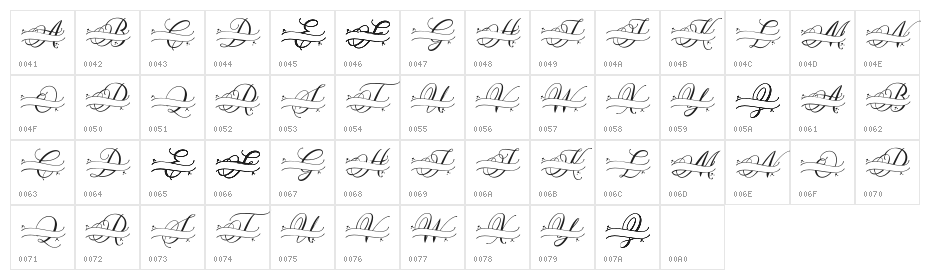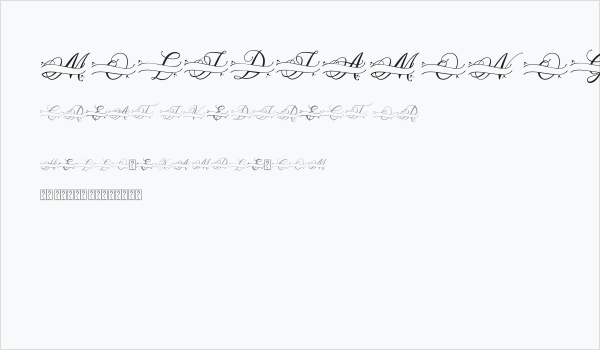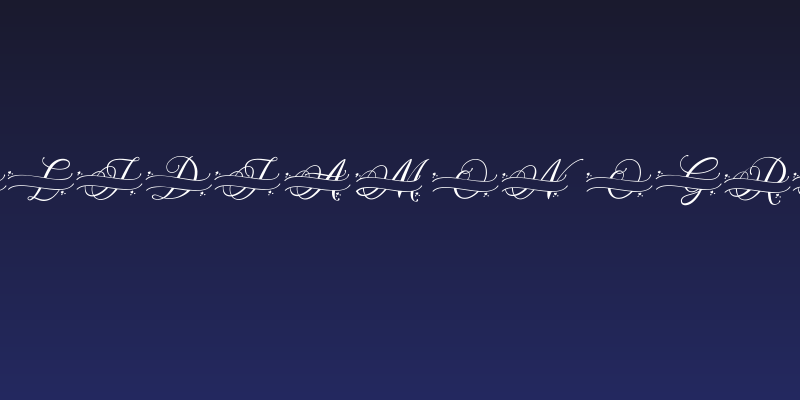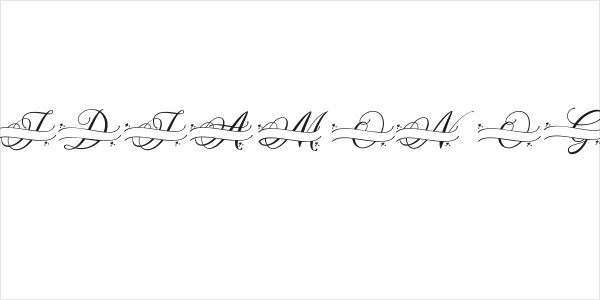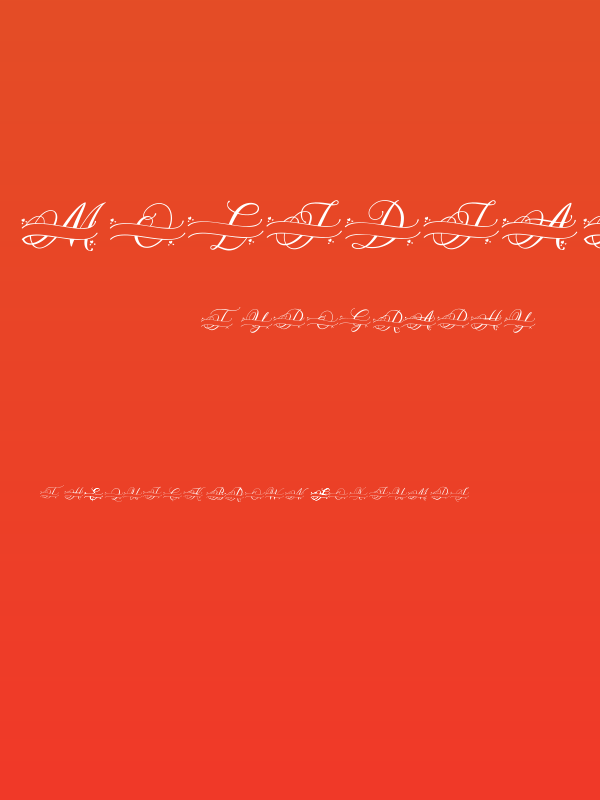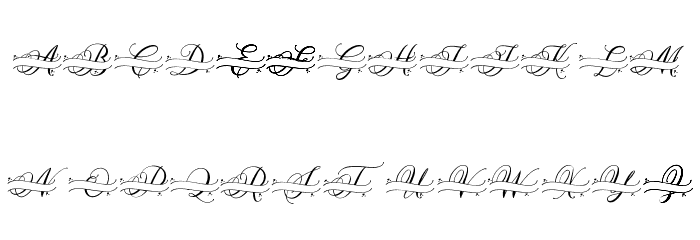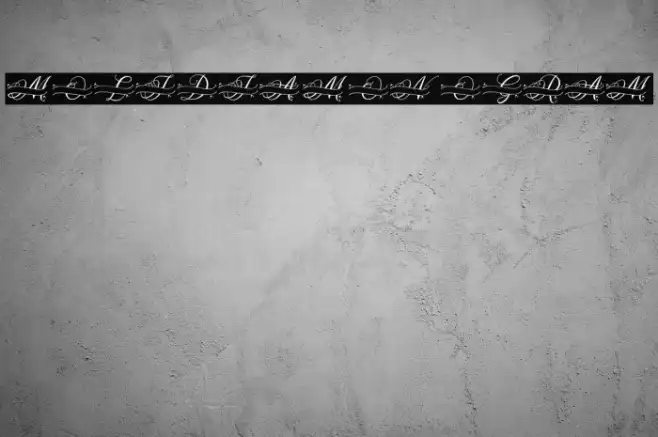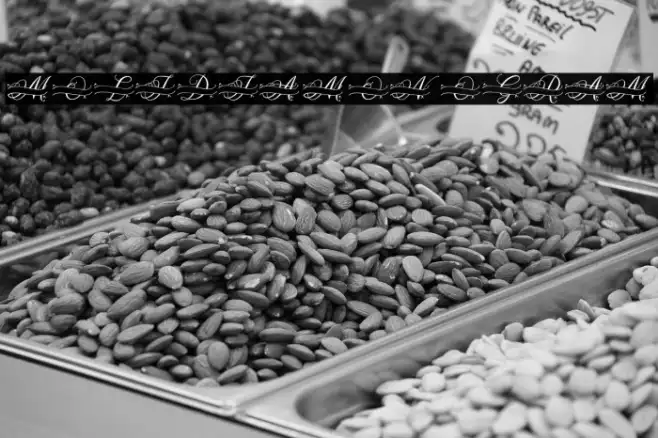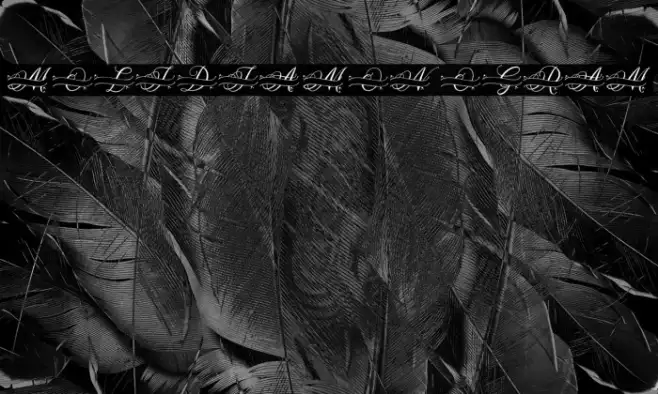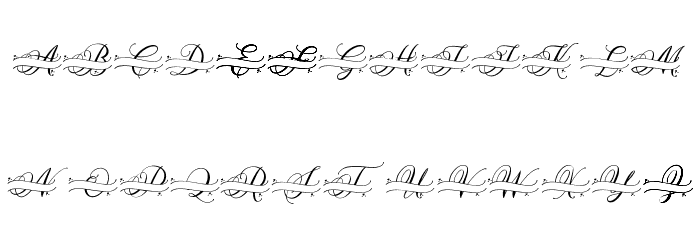
MOLIDIA MONOGRAM Font
MOLIDIA MONOGRAM Description
This font is an elegant and intricate script style, characterized by its elaborate swirls and flourishes that extend from each letter. The design is reminiscent of classic calligraphy, with a modern twist that adds a unique flair to each character. The uppercase letters are particularly ornate, featuring loops and curves that give the font a sophisticated and decorative appearance. The lowercase letters maintain the same level of detail, ensuring a cohesive look throughout. This font is perfect for projects that require a touch of elegance and refinement, such as wedding invitations, luxury branding, or high-end product packaging. Its artistic style makes it stand out, while the consistent line weight and spacing ensure readability.
| Proposed Projects | Ideal for wedding invitations, luxury branding, high-end product packaging, and decorative signage. |